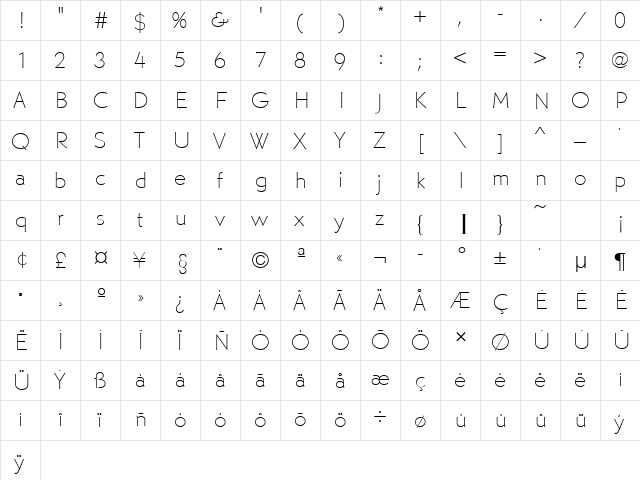
MartinGotURWTThi Regular
Design Context for MartinGotURWTThi Typeface
MartinGotURWTThi is a composed and adaptable typeface that performs quietly and consistently across a wide range of design contexts.